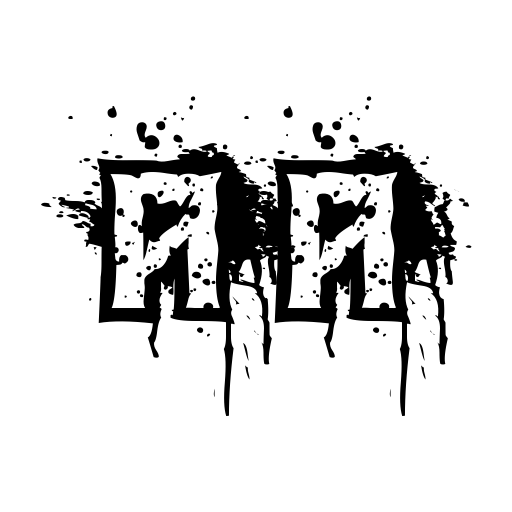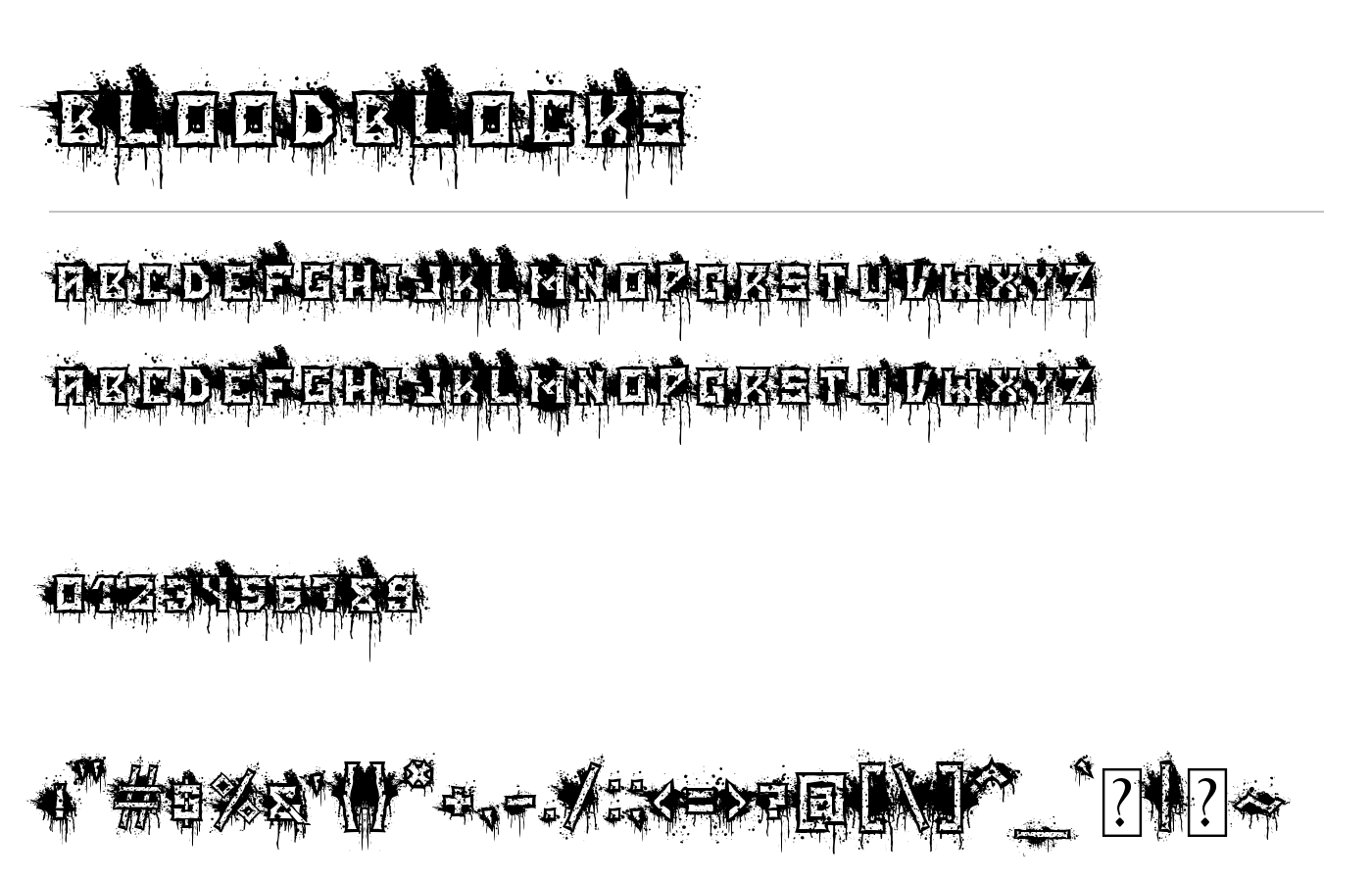
BloodBlocks is a bold, decorative display font with a gritty, distressed texture that resembles dripping paint or blood splatters. Its uppercase blocky letters are enclosed in rough, uneven edges, creating a dark, edgy vibe perfect for horror, thriller, or urban-themed designs. This font works exceptionally well for striking headlines, posters, or branding that demands a strong, rebellious, and dramatic statement.
BloodBlocks Font
About BloodBlocks Font